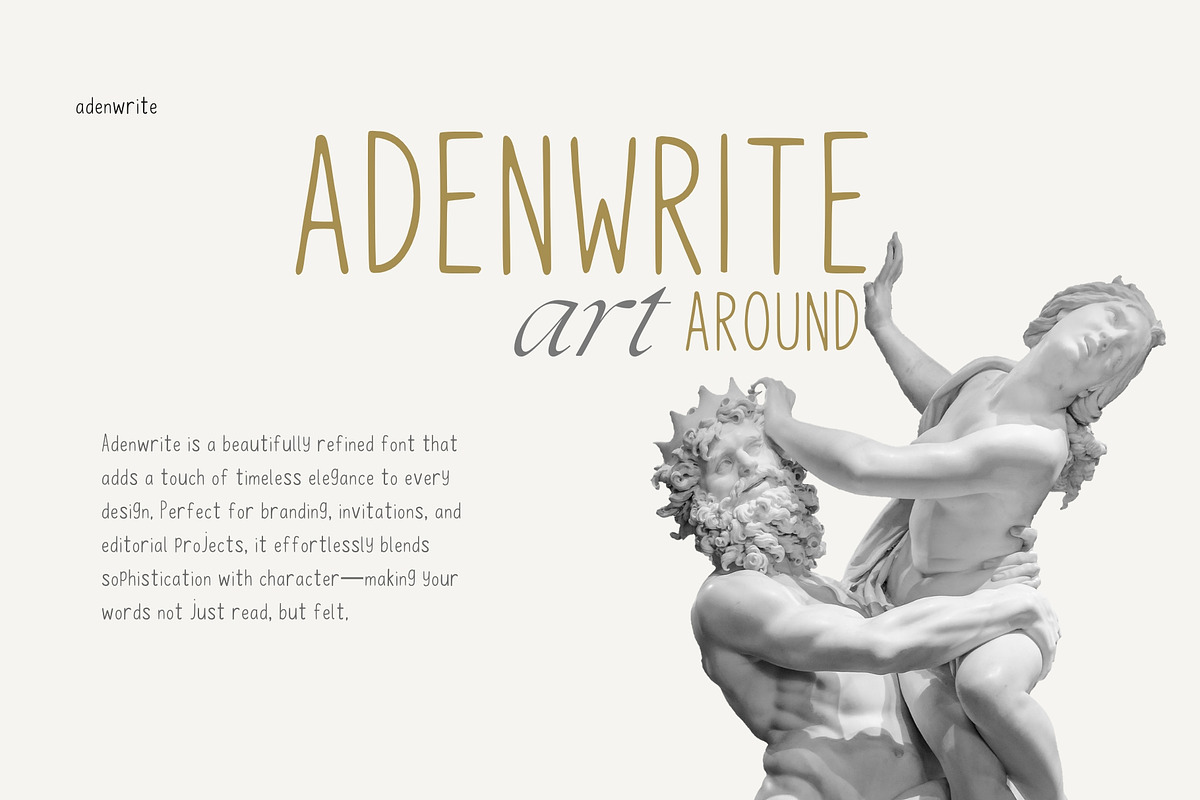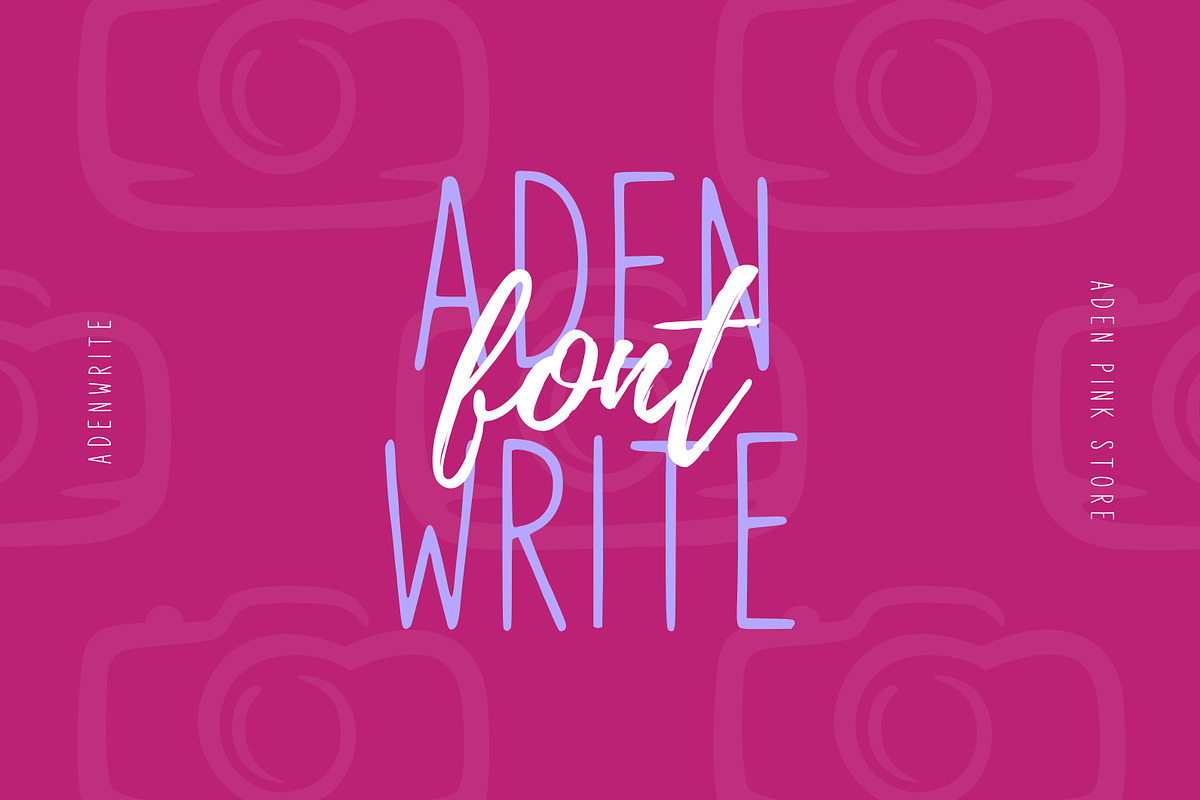
Adenwrite – Modern Elegance in Every
Adenwrite brings a sense of refined personality to your creative projects. With its stylish and graceful strokes, this font adds a unique character that works beautifully in branding, editorial designs, social media graphics, packaging, and more. Included in the download are OTF and TTF formats, making it easy to use across various platforms and design software. Whether you're working on a logo, a headline, or a stylish quote, Adenwrite is crafted to bring charm and clarity in every letter.